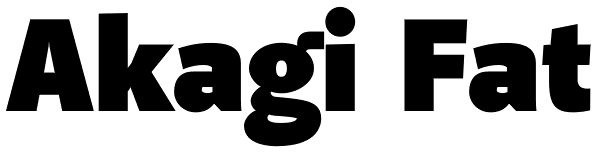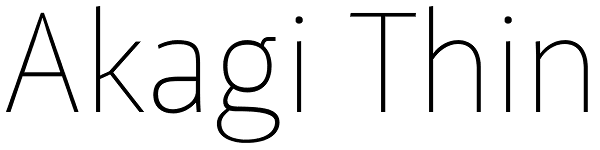
Akagi
Akagi started as a rough sketch while on a really long plane ride to Tokyo in 2007. I wanted to develop a sans that was a complete departure from my successful Aaux Pro (now Aaux Next) sans serif family. Whereas Aaux and its siblings are rather...